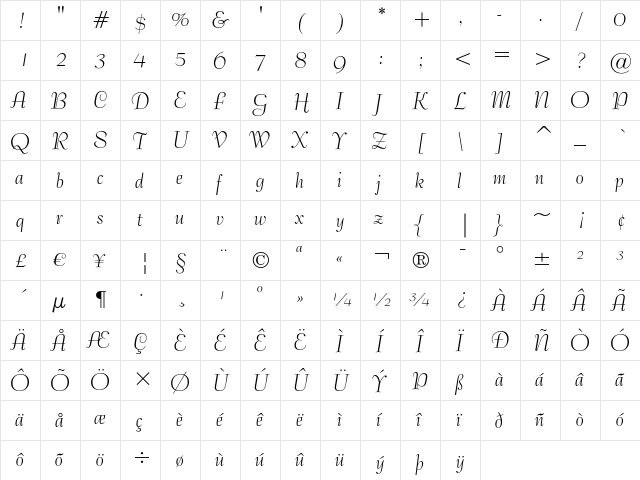
Bernhard Tango Regular
Design Context for Bernhard Tango Typeface
Bernhard Tango is a composed and adaptable typeface that performs quietly and consistently across a wide range of design contexts.